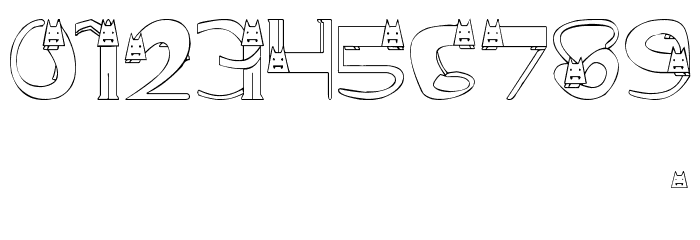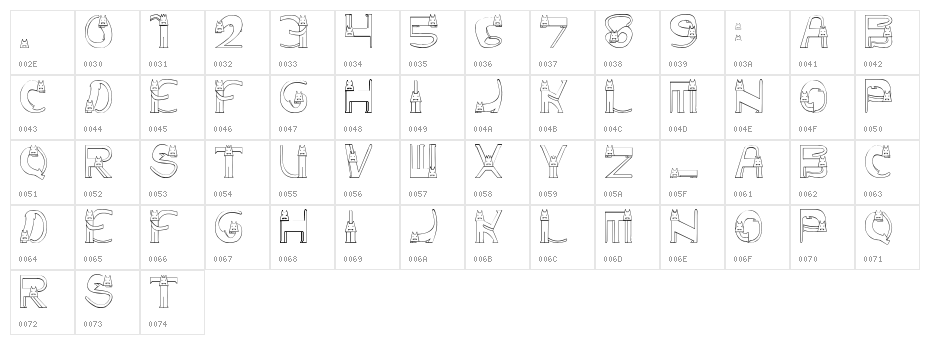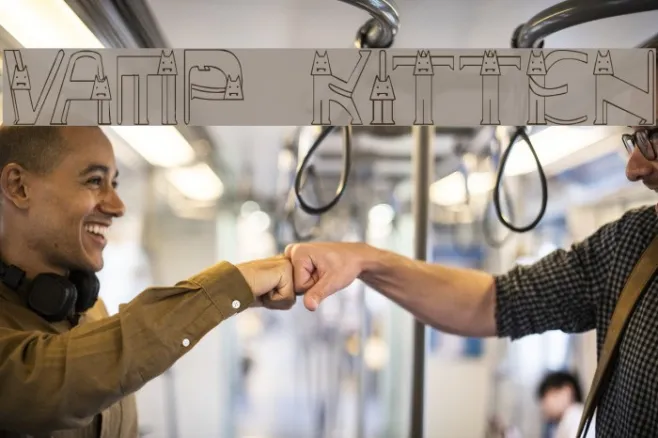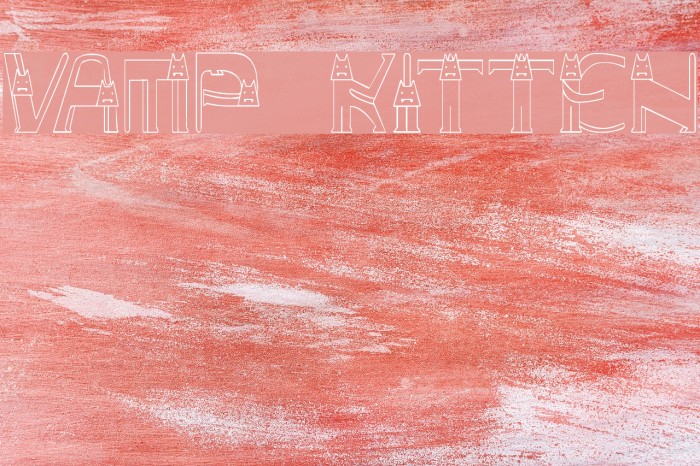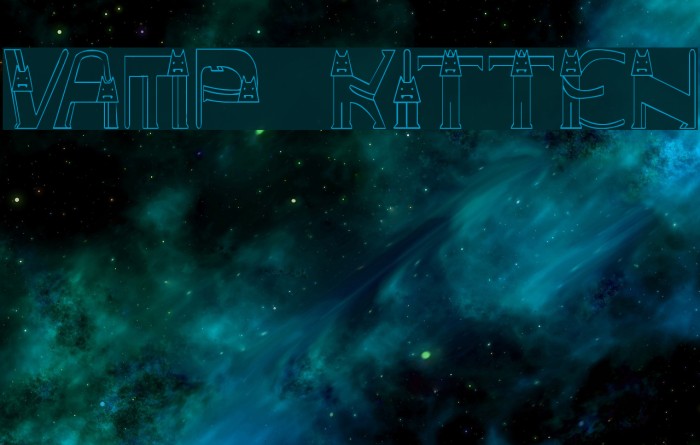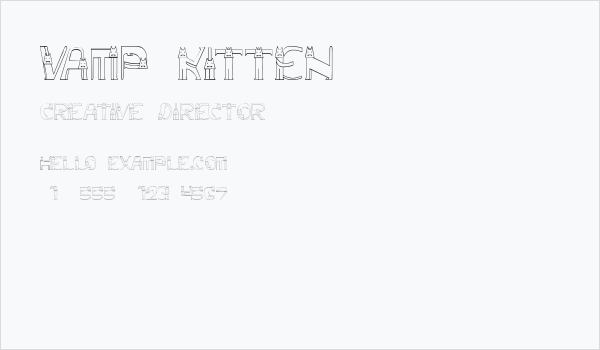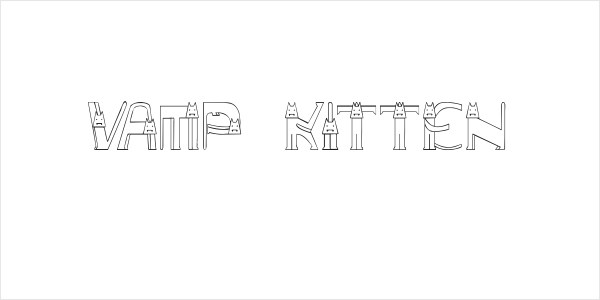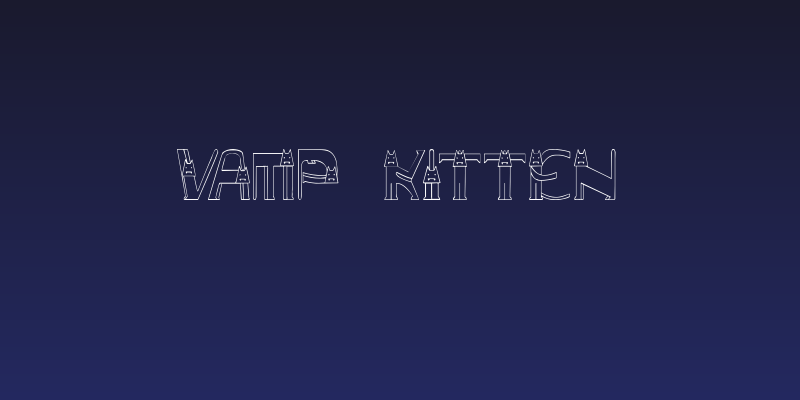
Vamp Kitten Font
Vamp Kitten Description
This playful and whimsical font features letters and numbers integrated with cat-like figures, giving each character a unique and charming appearance. The design incorporates feline elements such as ears and tails, seamlessly blending them into the structure of each letter and number. The font maintains a consistent line weight throughout, with a clean and minimalistic outline style. Its quirky and decorative nature makes it ideal for projects that require a fun and engaging visual element. The characters are evenly spaced, ensuring readability while maintaining the artistic flair of the design.
| Overall Style | Whimsical |
| Use Case | Logos, Posters, Invitations |
| Proposed Projects | Ideal for children's books, pet-related branding, playful posters, and whimsical invitations. |